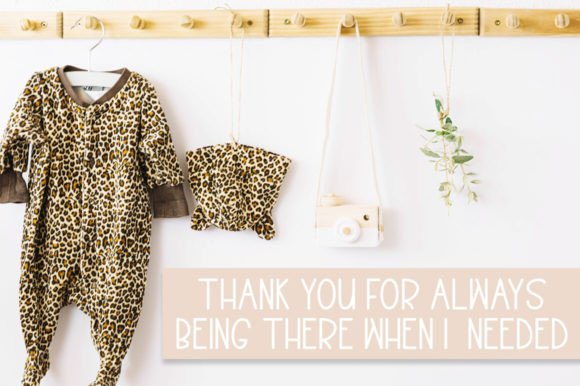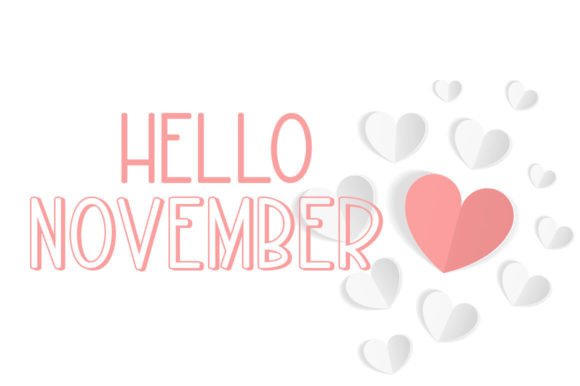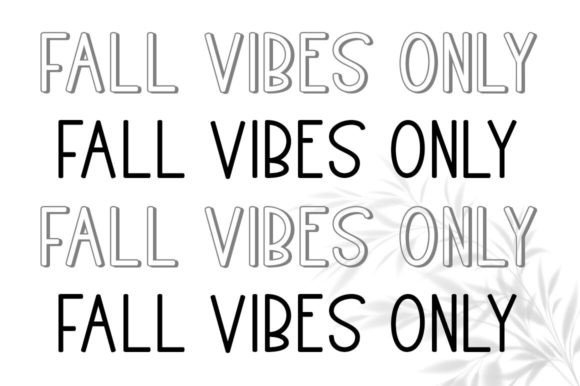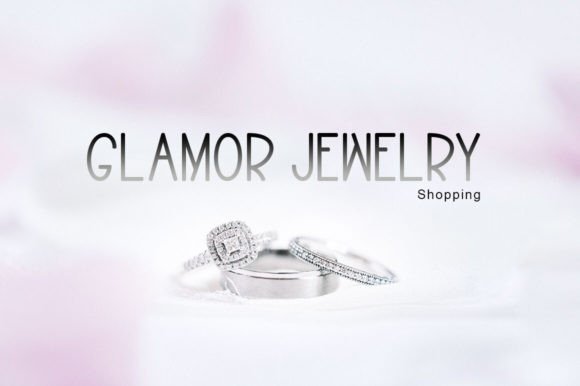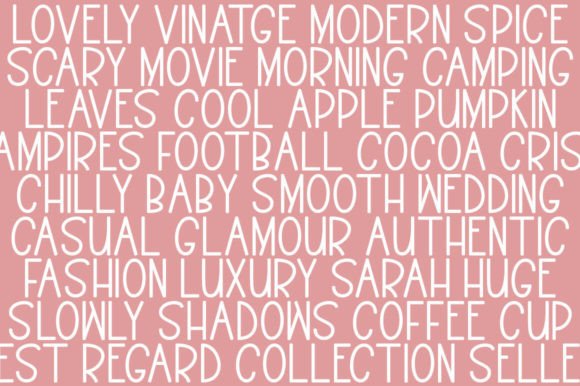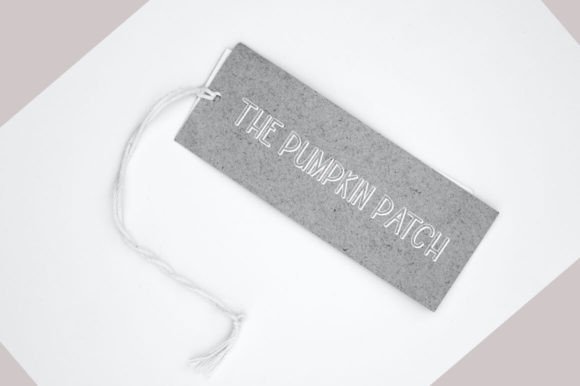
Introduction to Creative Shadows Font
Creative Shadows is a beautiful and simple handwritten font.
This elegant font is legible and looks great as a title or body text It will be perfect for various designs for magazine headlines, social media, branding, wedding invitations, cards and so much more.